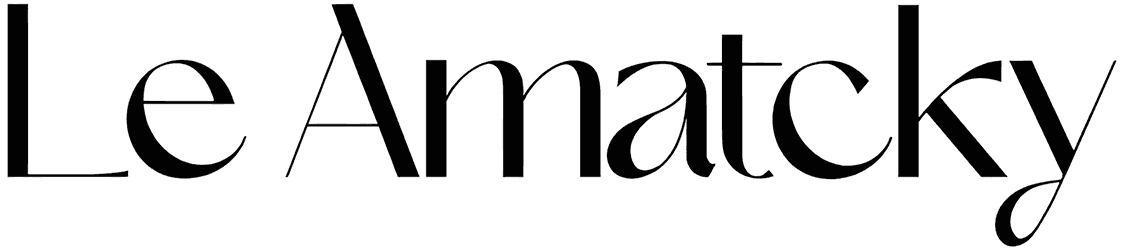
Le Amatcky Font
Are you interested in writing on the covers of old books and want to create the same nostalgic feeling in your content? Le Amatcky is made for you.
This sans serif font has completely traditional and standard twists that can give your writing a super formal and impressive look. Using this font, you can complete the website text, book cover, or any other digital and printed project from A to Z and bring your artistic masterpieces to life even without numbers.